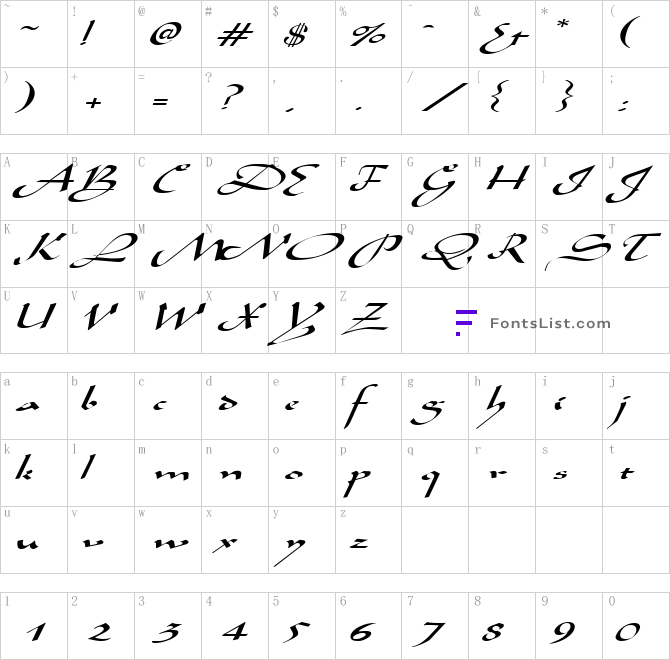
- Font Name:AladdinExpanded
AladdinExpanded-Italic-copy-1-.ttf is a very beautiful artistic font, AladdinExpanded-Italic-copy-1-.ttf is widely used in the design and printing of various books and pictures,AladdinExpanded-Italic-copy-1-.ttf has a strong visual impact,AladdinExpanded-Italic-copy-1-.ttf is a commonly used font in newspapers, magazines and books, and is used in posters, e-commerce Poster design, store design, logo design, font design and other fields.AladdinExpanded-Italic-copy-1-.